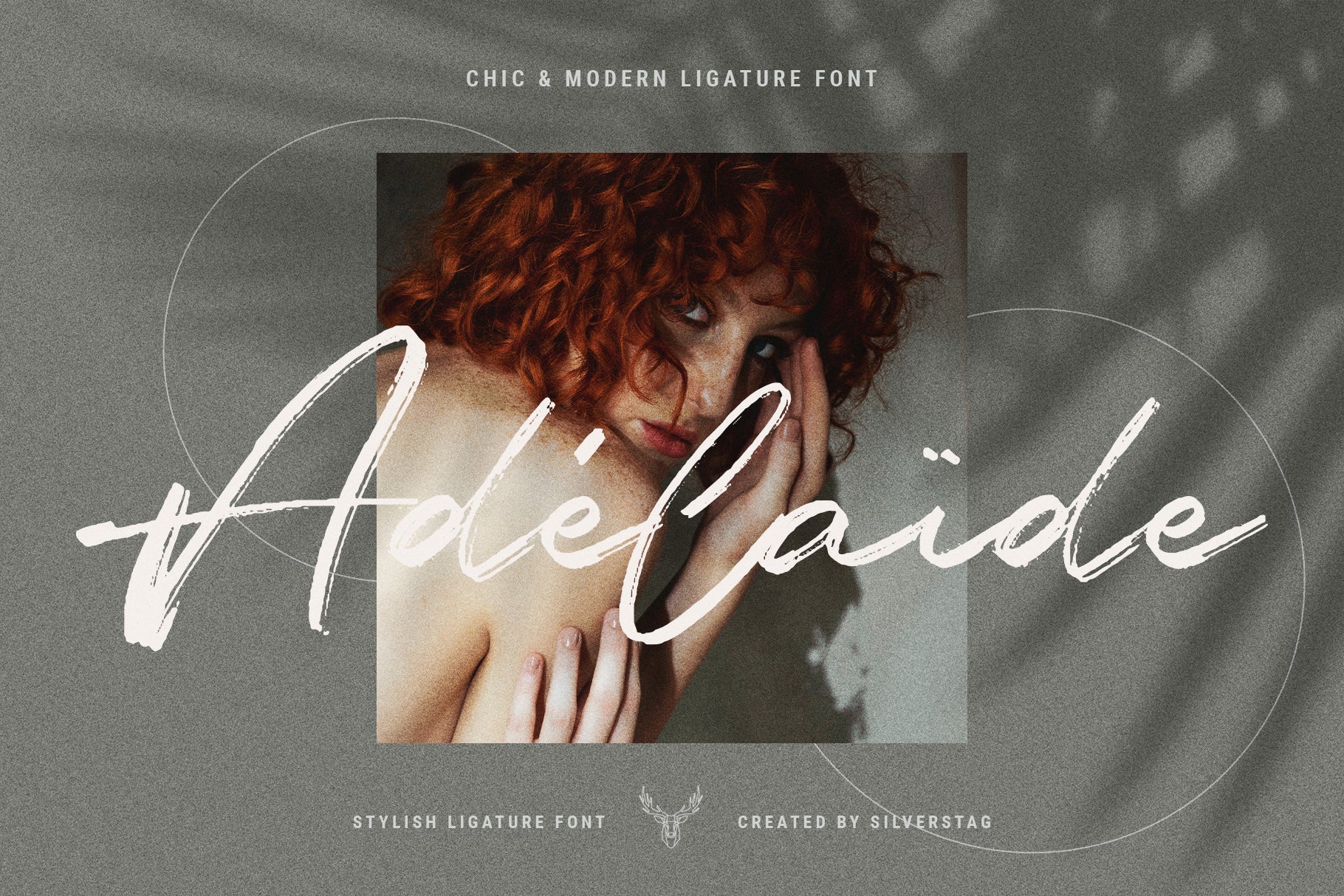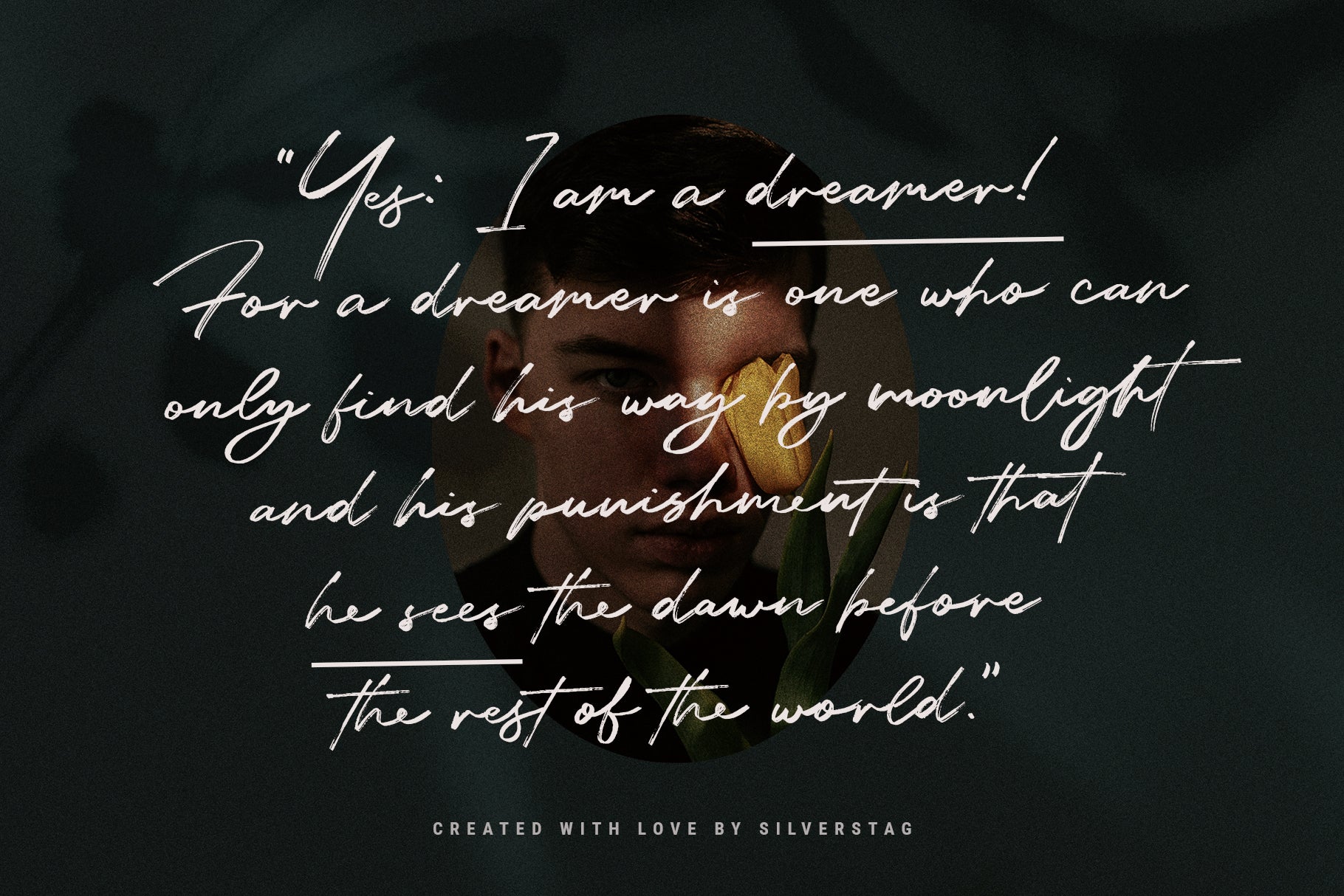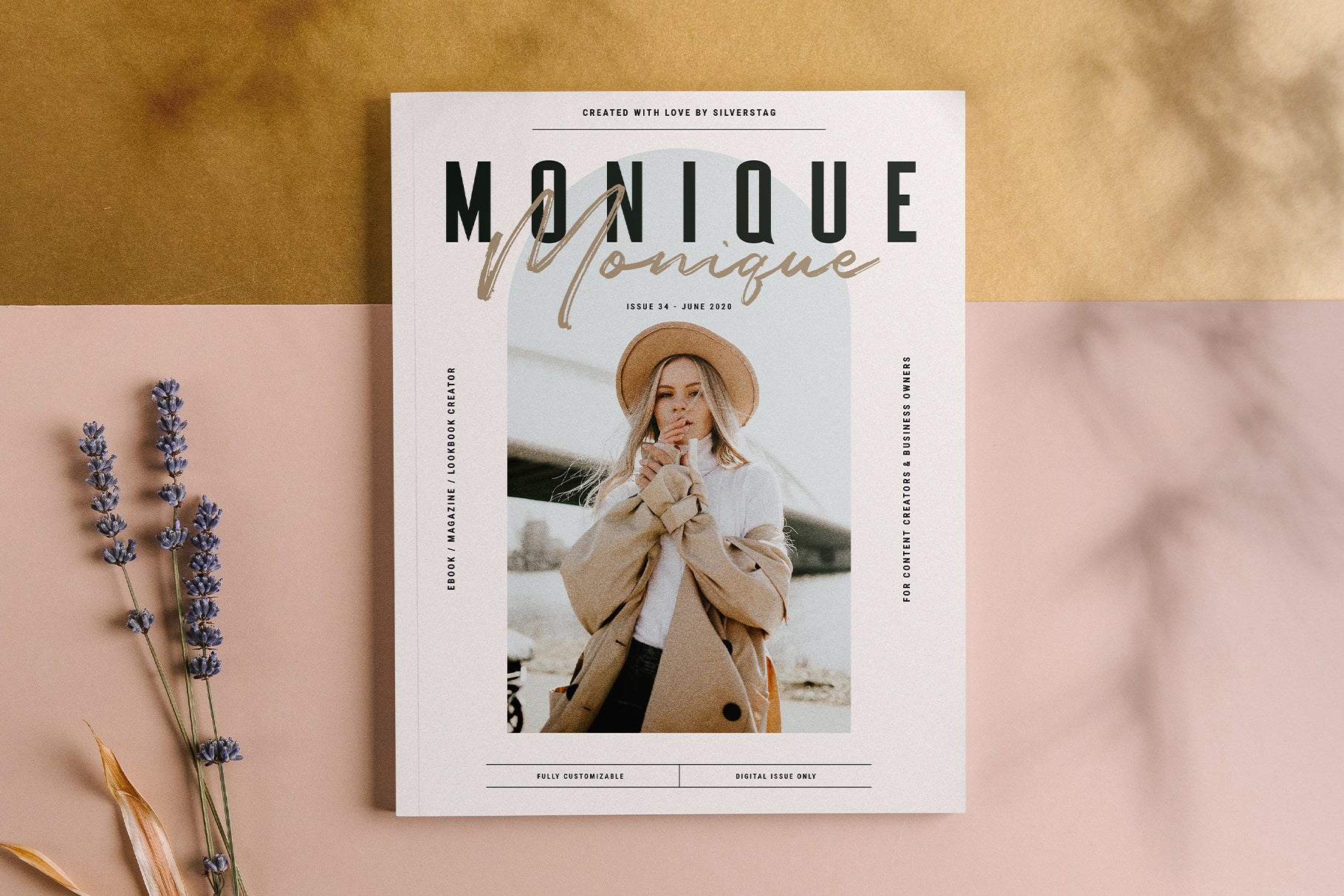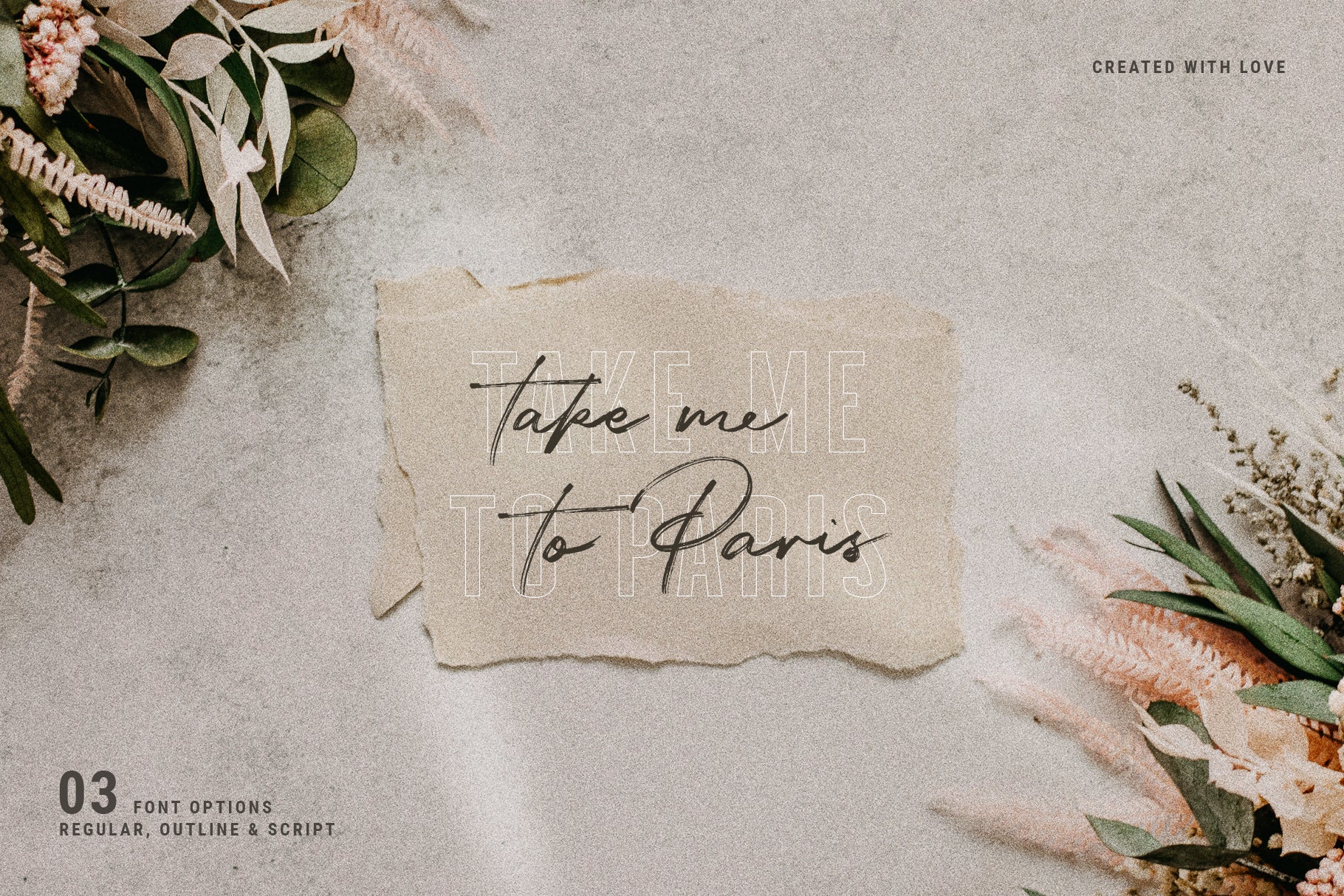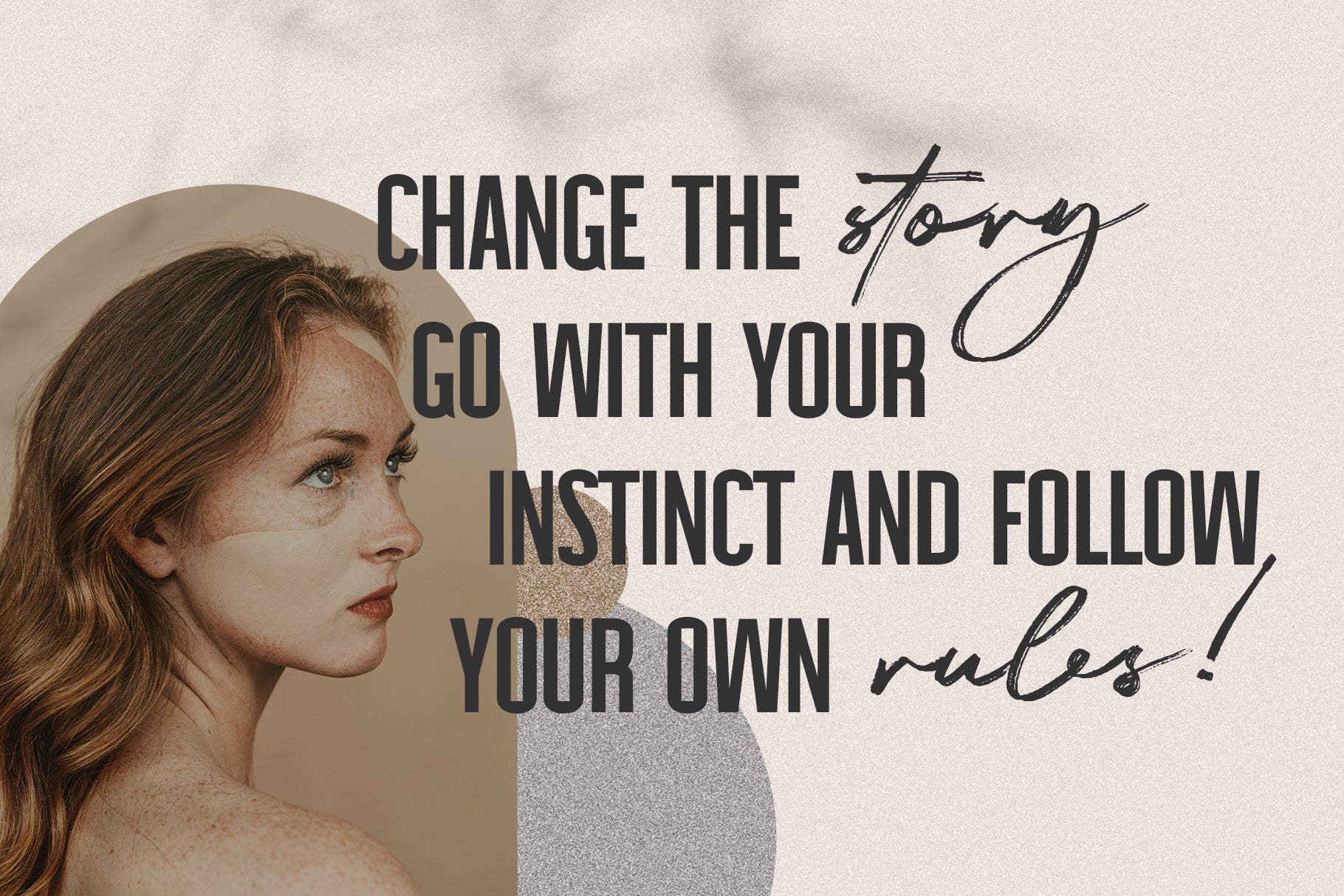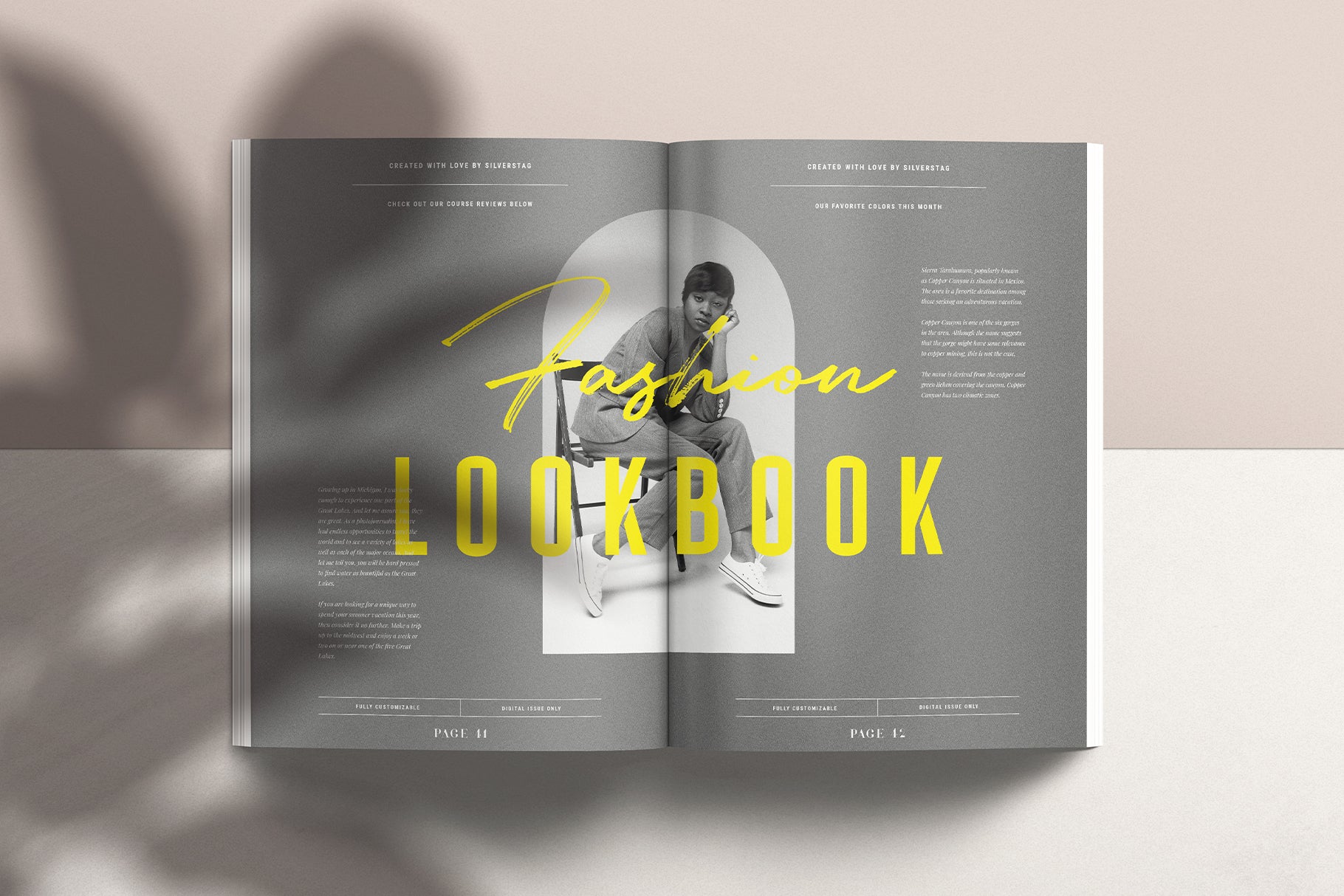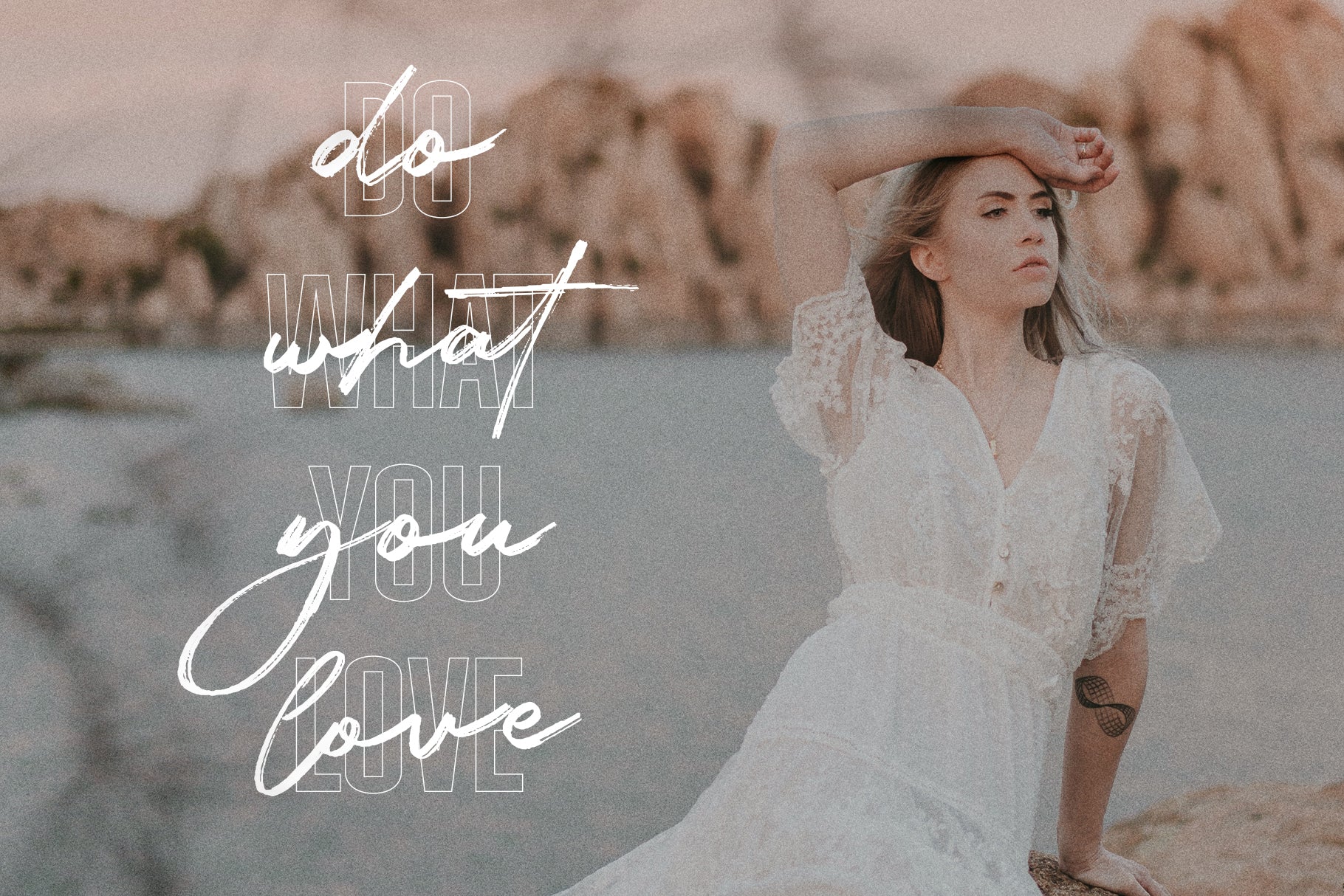
Dreaming of fresh designs? The Dreaming Of Spring Stylish Font Duo brings together a lively hand-drawn brush script with a clean, elegant sans serif — perfect for spring-themed projects and beyond. This creative font pack includes over 250 ligatures and alternate letters, offering endless possibilities for custom typography.
The brush script overflows with energy and charm, while the accompanying sans serif (available in regular and outlined versions) provides a balanced, modern edge. Whether you’re designing logos, social media graphics, wedding invitations, or website headers, this duo offers the ideal blend of playful authenticity and minimalistic elegance.